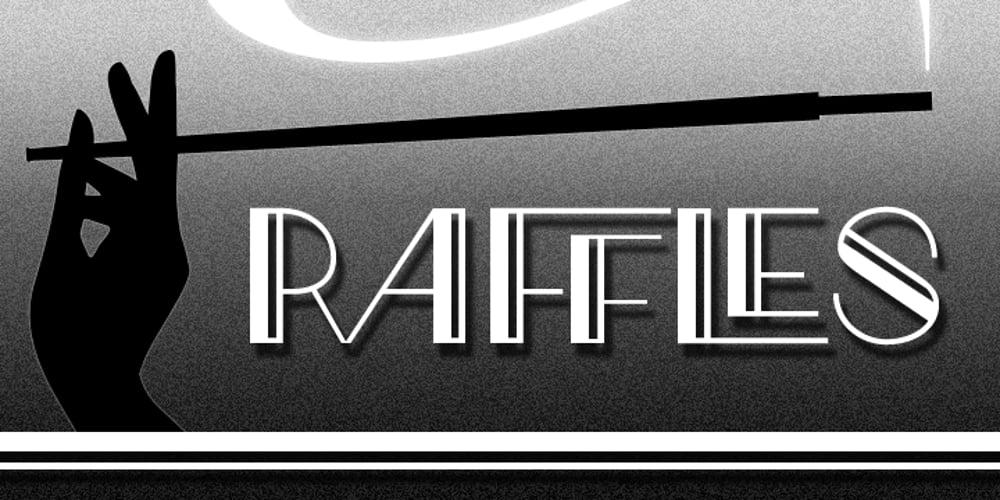
Raffles
Raffles font
Raffles Font Family was designed by Tanya Davis and published by Scrowleyfonts. Raffles contains 4 styles and family package options. Raffles is an Art Deco inspired font which takes geometric lettering to another level with comprehensive contextual alternates for exciting uppercase titling. There are four different styles available for a retro or a more contemporary look and feel. I hope that you will enjoy using it as much as I enjoyed creating it!